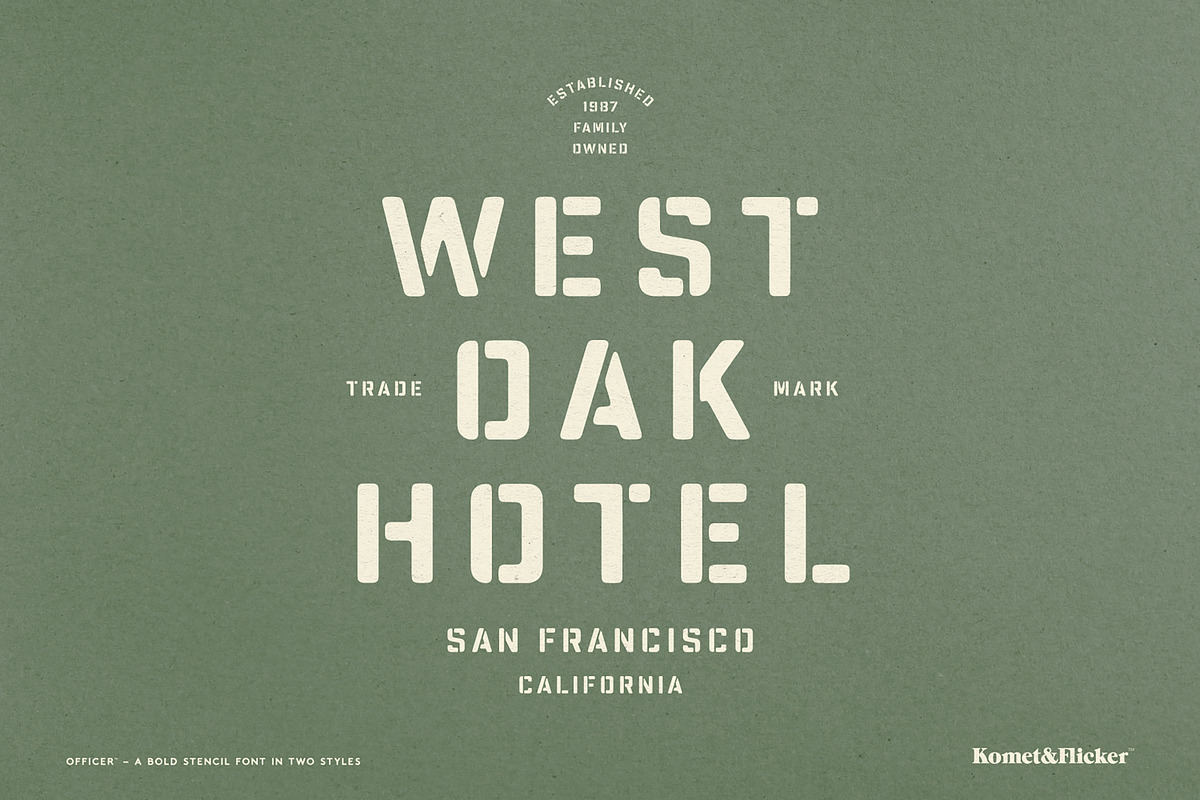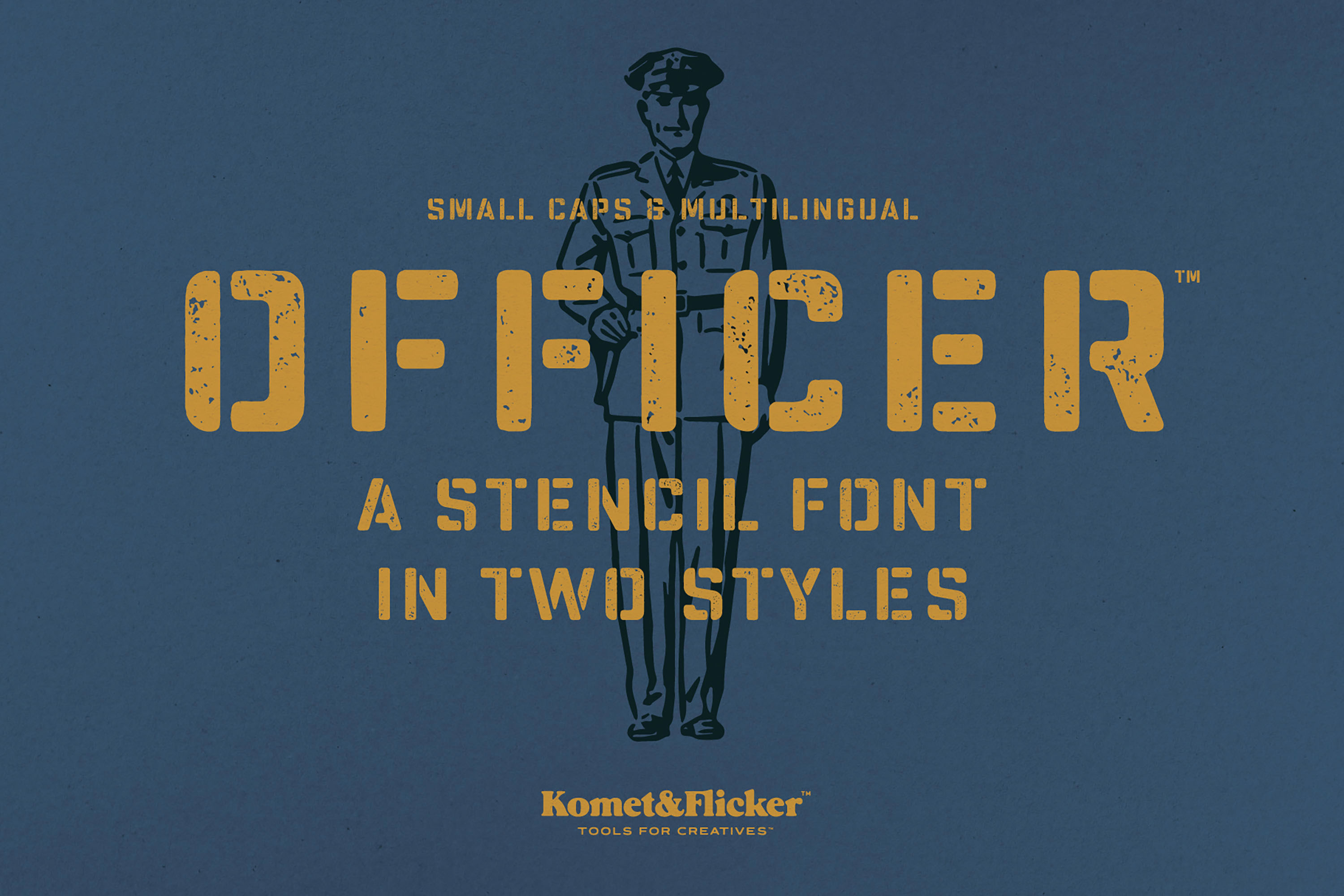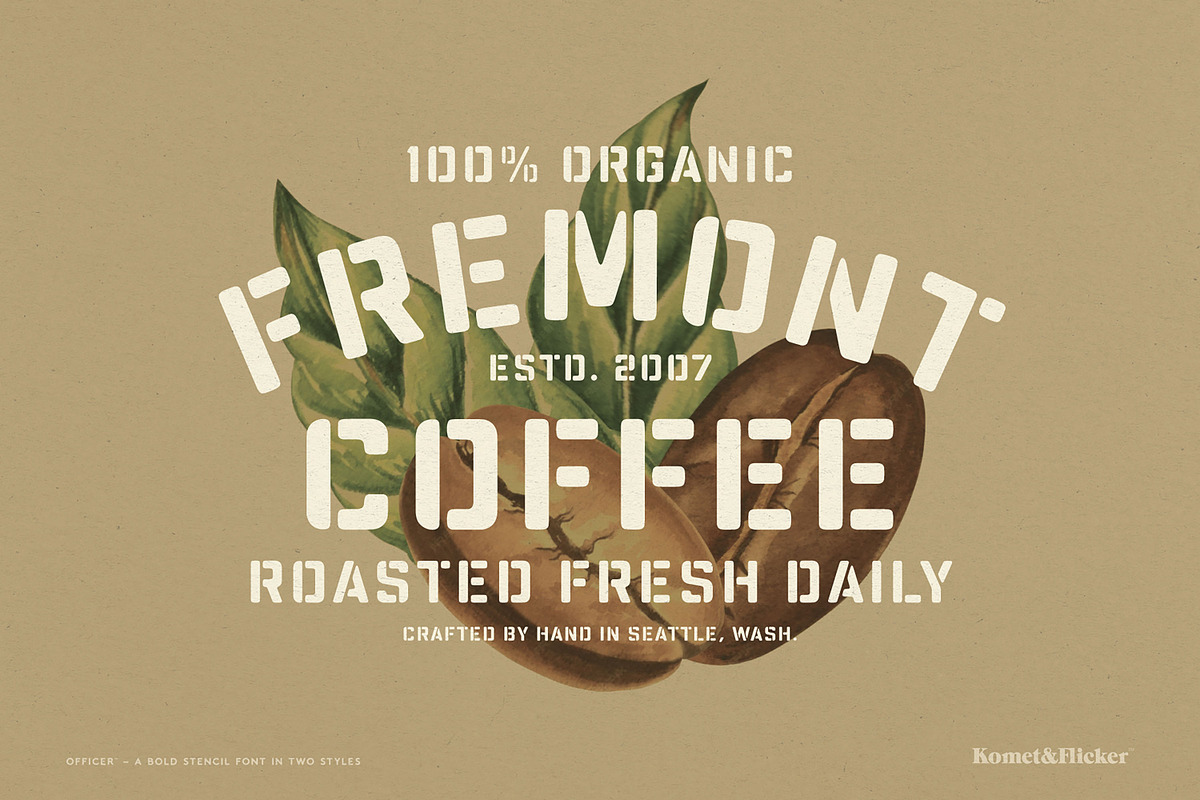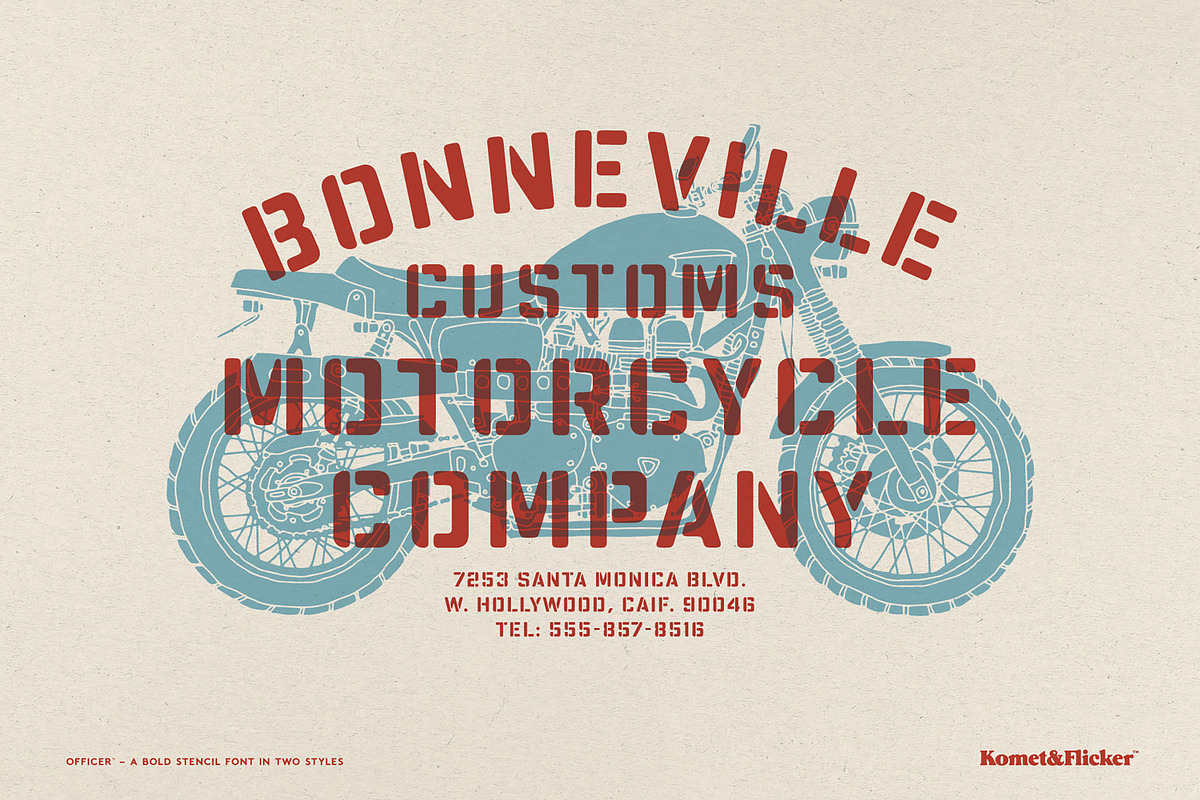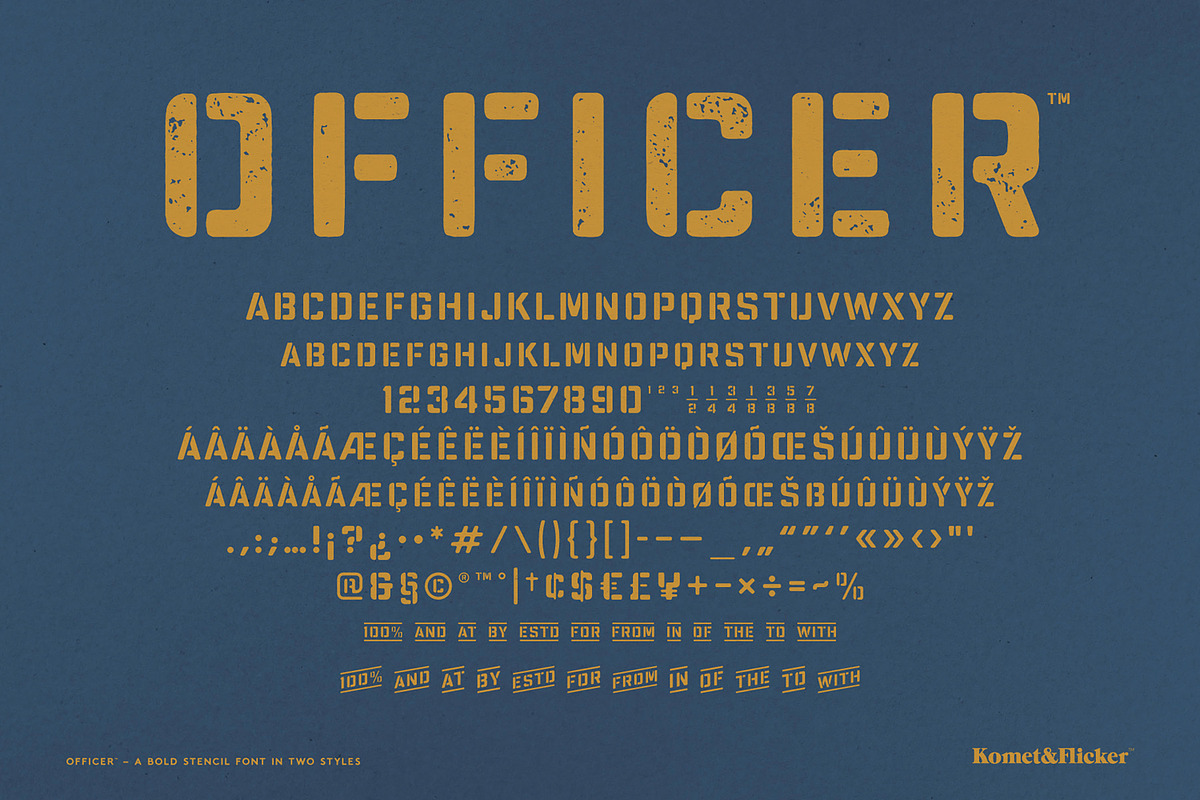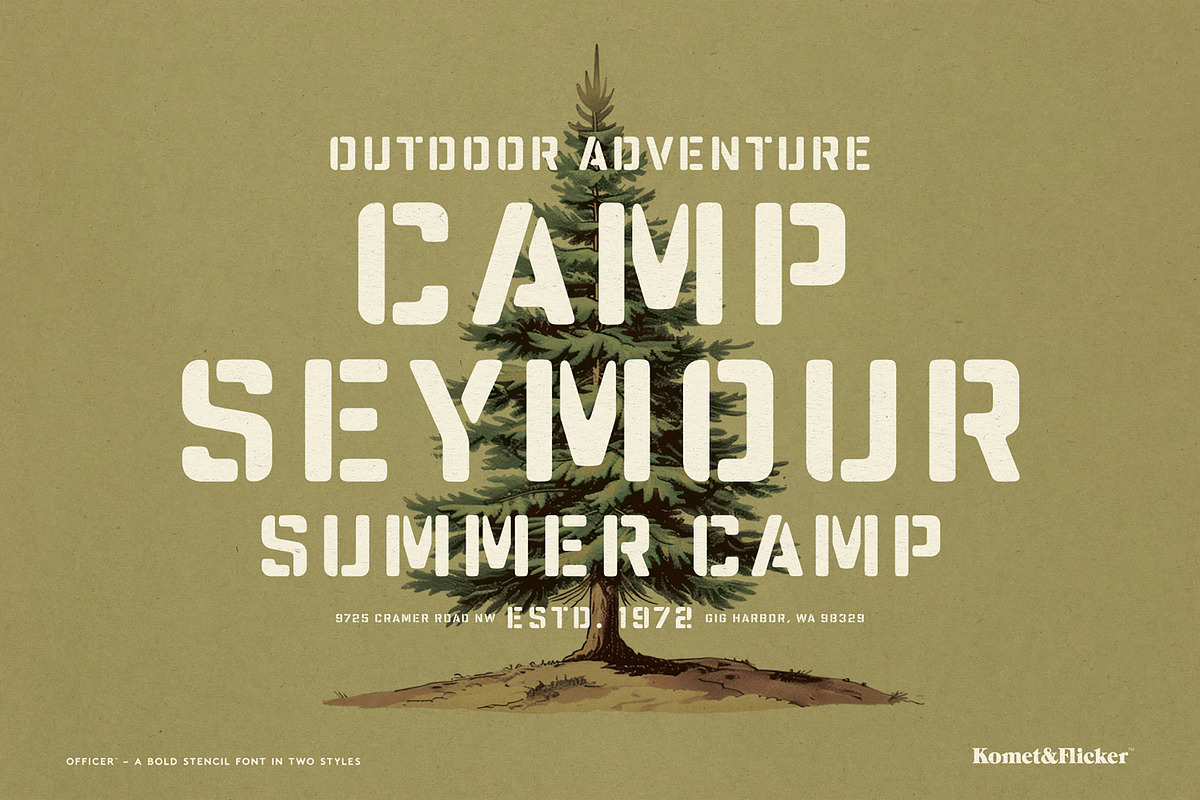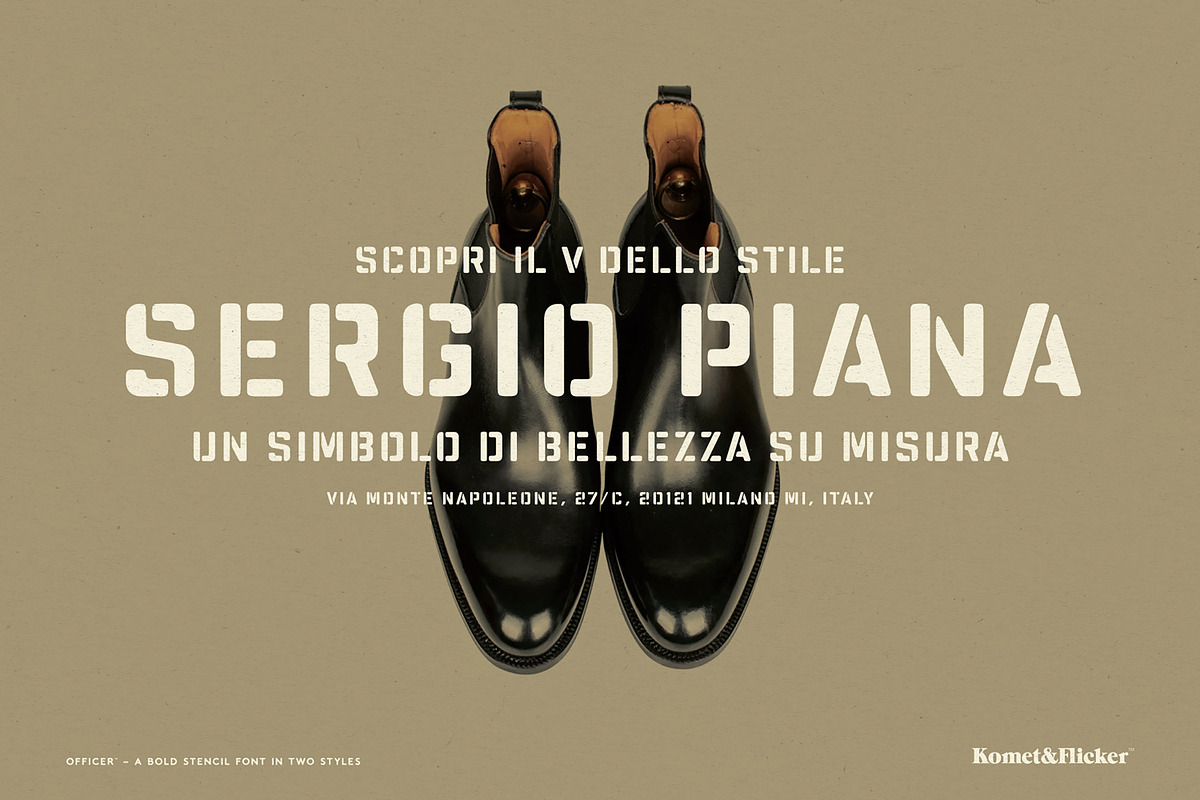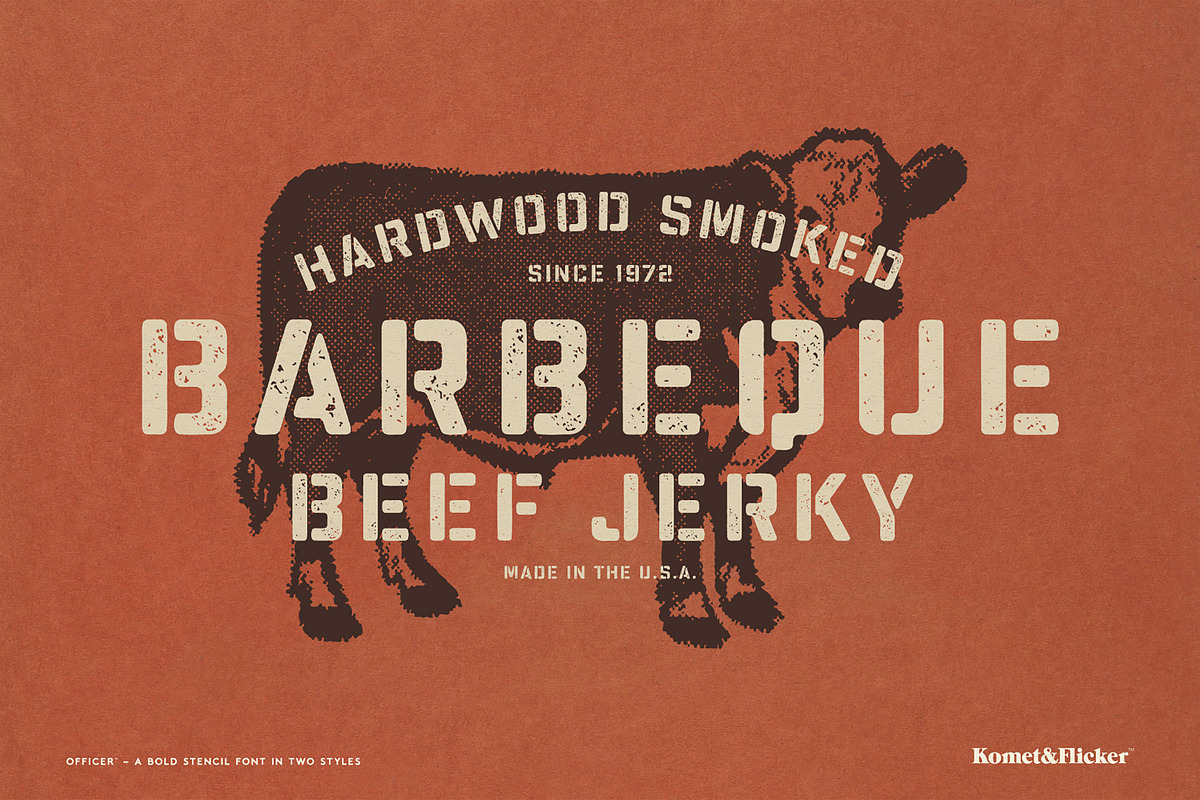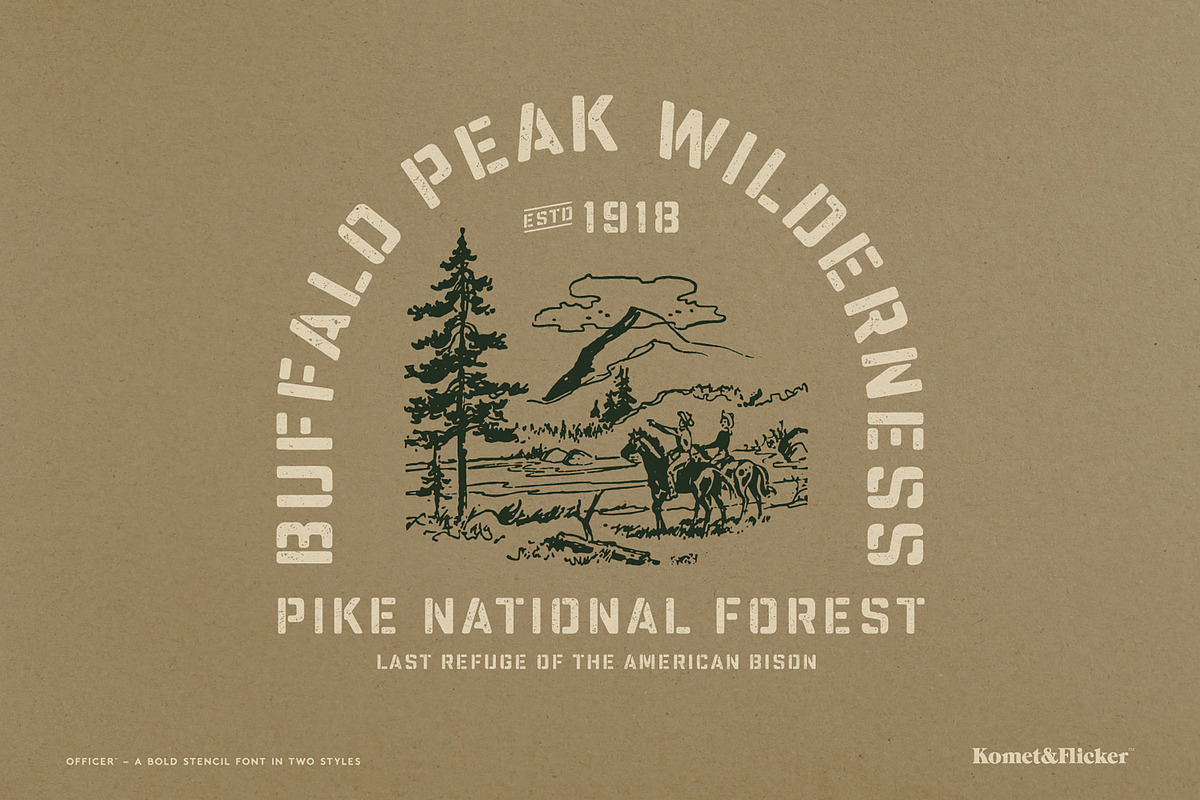
Officer - A Bold Stencil Font
Officer is a bold stencil font designed to make a statement. With its strong lines and arresting presence, this font is perfect for creating designs that command attention. Whether you're crafting impactful posters, branding materials, or industrial-style graphics, Officer brings a touch of rugged strength to every project.
Choose between two distinct and versatile styles to fit your design needs:
Clean Version: Sharp and precise, the clean style offers a crisp look that’s perfect for sleek and professional designs.
Rough Stamp Version: For an authentic, worn-in feel, the rough stamp version adds texture and character, giving your design a gritty, hand-crafted look as if it's been stamped into place.
Also, to enhance the realism of the rough stamp version, Officer includes alternate characters for the 10 most common double letters (such as “oo”, “ee”, “ss”, etc.). These alternates are specially designed to add slight variations and imperfections, creating a more organic, stamped effect that feels truly handmade.
In addition, this font comes with a unique set of 24 custom connecting words (12 words in two styles), designed to add seamless flow to your typography.
THIS FONT COMES IN TWO STYLES
- Officer Stencil Bold
- Officer Stencil Stamp Bold